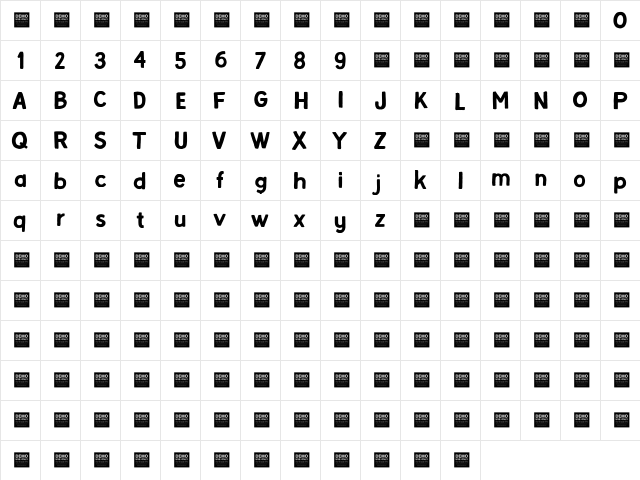
Alpha Beta - Demo Regular
Design Context for Alpha Beta - Demo Typeface
Alpha Beta - Demo offers clean, dependable letterforms without strong stylistic allegiance, making it a practical choice for designers who need flexibility.
Pro Tip: Use Alpha Beta - Demo in both headline and body roles to test its range before committing to a single application.